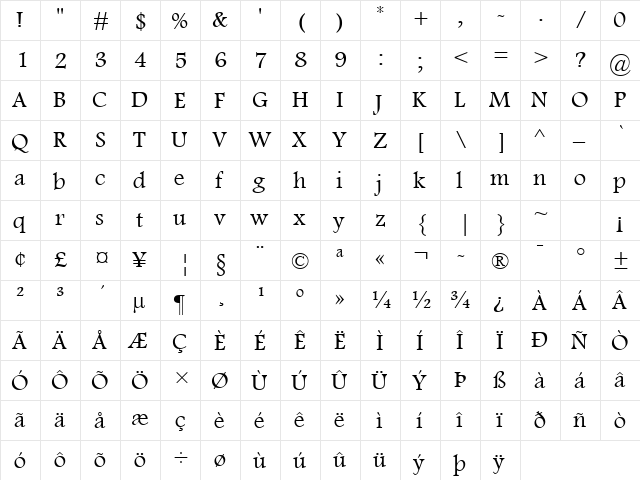
Footlight MT Light Regular
Design Context for Footlight MT Light Typeface
Footlight MT Light is a composed and adaptable typeface that performs quietly and consistently across a wide range of design contexts. The delicate stroke weight brings airiness and refinement to layouts.
Pro Tip: Pair Footlight MT Light with a font of contrasting weight or personality to build a more expressive typographic hierarchy.